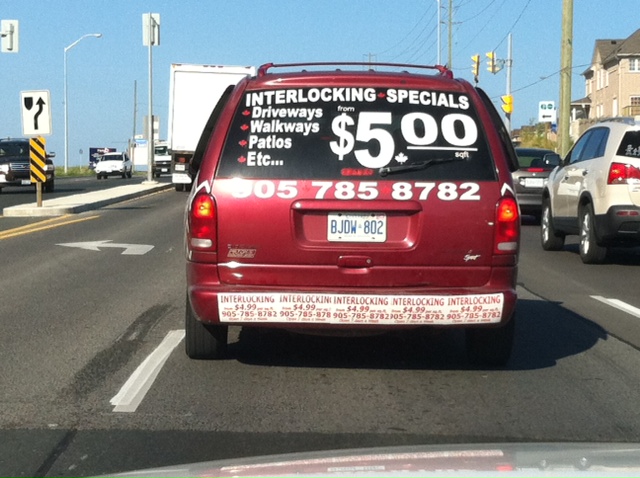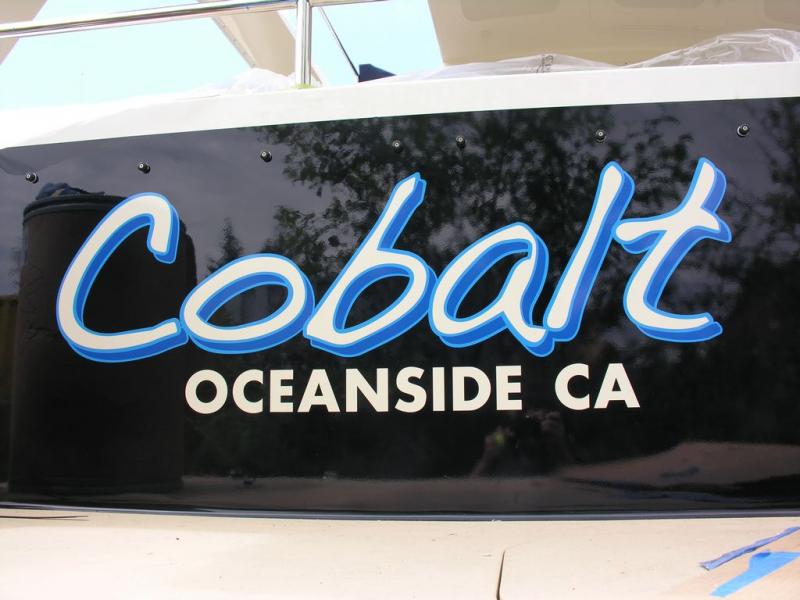
Worst fonts ever!
I know some of you guys have to have fonts that you hate and refuse to use
Comic Sans - for obvious reasons
Papyrus - may be known by another name
Old English styles - all caps infuriates me when I see it done
The buffy the vampire slayer one
The harry potter one
Brush Script. I've had to use it several times to match existing logos or vehicle graphics but it seems like the easy way out when someone says, "give me some kind of script".
Times and Helvetica, does anyone know how many slightly different versions of Times and Helvetica there are?
You always have a different version that the customer. Many times you only discover when it has printed.
You have to have Papyrus installed, how else would you create for Yoga Studios?
Papyrus and Bleeding Cowboy both make me want to punch kittens. BUT... it's a great way to peg your clients taste within 5 seconds of discussing design with them!
I letter boats for a yacht manufacturer on a regular basis. Sometime I get to design something I feel is appropriate for the name the boat buyer has chosen, and for the look of the craft and its colour scheme. Then other times the client insists we do this to their new 1.2 million dollar toy.....
Papyrus actually is a very nice type face, its problem is that everyone and their dog used it, and still use it, everywhere and for everything. Its major problem is that it's irrevocably passe from gross over use.
Bleeding Cowboy has no reason to live. None. Not only is it disgusting, it's seriously bad typography.
Copperplate used in any point size more than 12 is abuse and demonstrates a complete lack of understanding of just why that face was designed.
The rest of the list of usual suspects; Comic Sans, any sort of black letter, even Brush Script, etc., all have their rare few and far between legitimate uses.
always hated Mistral
LOL hate it now, but 15 + years ago I got a tattoo with it!
yeah its a go to
Agreed on the helvetica... they are tricky
LMAO on the papyrus.. dont forget the Thai food joints
About 95% of what is legitimately free and 40% of pay for fonts are totally worthless and have no use what so ever in any respectable library. The rest all have a legitimate use somewhere, sometime.
Algerian and the 20 other names for it on the net.
Curlz loopy hairdressers seem to like it, says it all really.
Cooper looks like what kids drew at school when bored.
My pet hates are:-
Brush Script......Scream,
Commercial Script......for a script it is so dead,
Clarendon, as it is just a horrible font,
My most hated of all fonts is Old English, I now have a personal vendetta against this font as loads of customers want it especially all caps!!!! I hate it, hate it......rant, rant rant,
OK, here is how I generally see Arial....seems to be used by someone new in this business who can't scroll down farther than an inch before he finds a font..... Look at the beautiful way they laid this out and notice the truly incredible bumper graphic.
The side of the truck looked like vomit on chit as well.